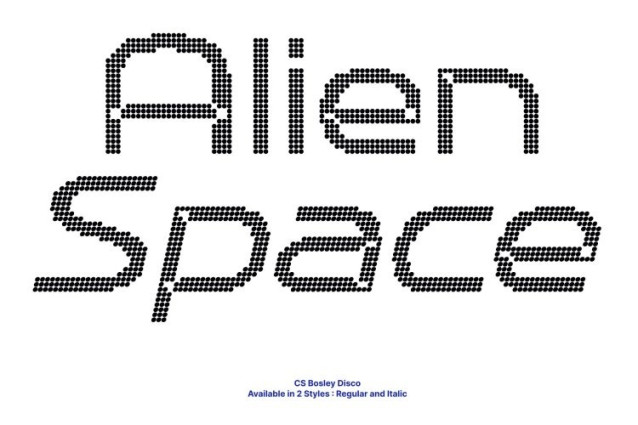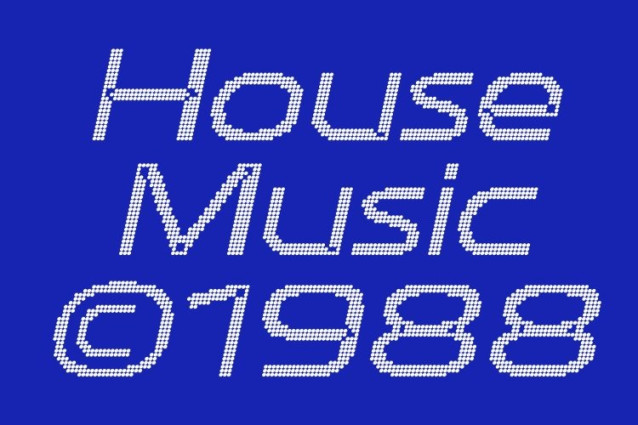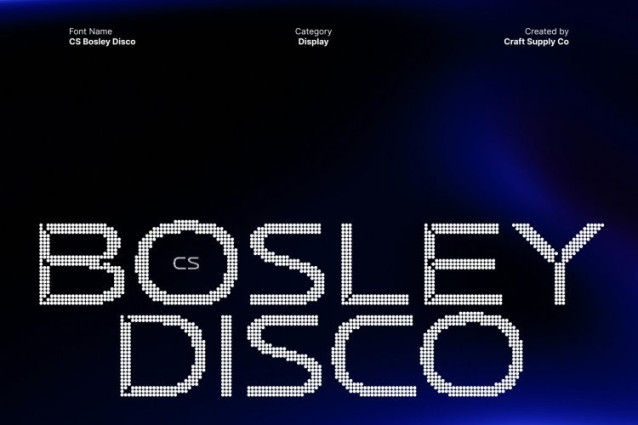
CS Bosley Disco Font
CS Bosley Disco Font This is a modern sans serif font featuring distinctive inktrap details, enhanced with a subtle disco-era attitude. Its clean, contemporary structure is combined with expressive corner cut-ins that add rhythm, texture, and visual interest creating a typeface that feels both technical and lively.
Clean, Contemporary Forms with Retro Energy
Built on a sleek sans-serif foundation, delivers excellent readability and a polished appearance. The absence of serifs keeps the design modern and minimal, while the confident geometry reflects the bold, forward-looking spirit of late 70s and early 80s design bringing clarity with a touch of retro movement.
Distinctive Inktrap Details for Visual Impact
The inktrap feature highlights corners and fine letter details, adding depth and character to each glyph. Beyond functional benefits, these inktraps create a stylish visual rhythm that echoes the precision and experimental typography of the disco-to-digital transition era, making the font stand out without feeling excessive.
Ideal for Modern Branding and Stylish Interfaces
This is perfect for branding, logos, editorial layouts, and digital interfaces that seek a modern yet expressive tone. Its balance of clean design, detailed craftsmanship, and subtle disco-era energy allows designers to create visuals that feel contemporary, confident, and unmistakably distinctive.